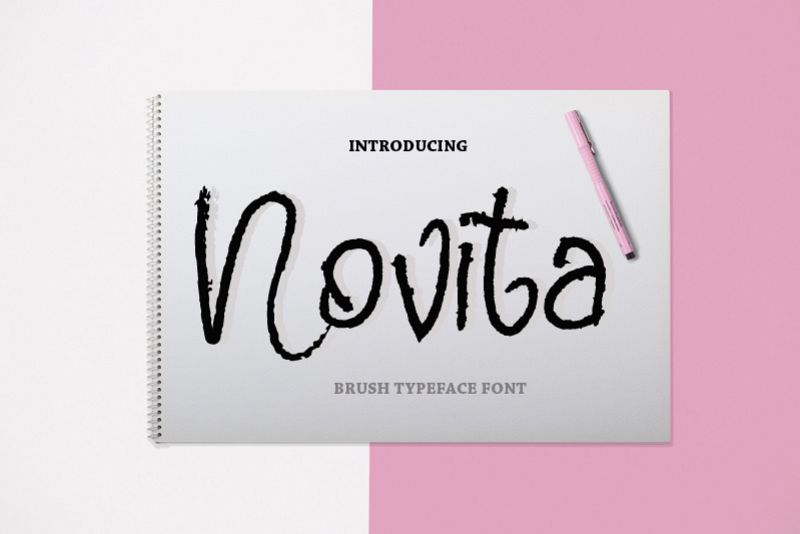
Novita
Novita, a handwritten font brush, complete with various languages, suitable for use in various desing such as posters, clothes, color screen printing, wedding, magazines and others